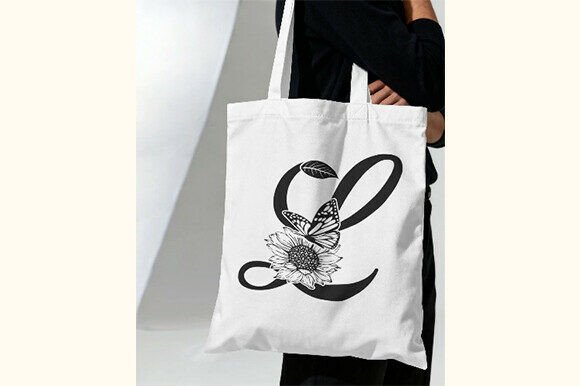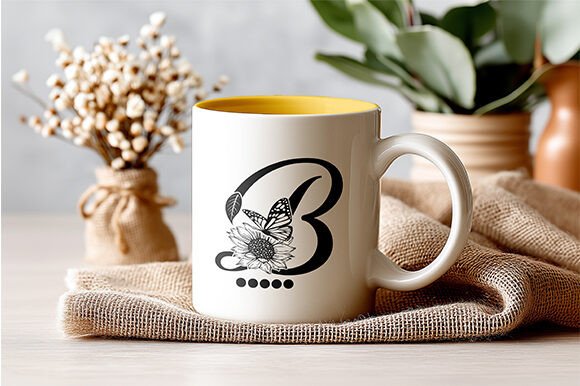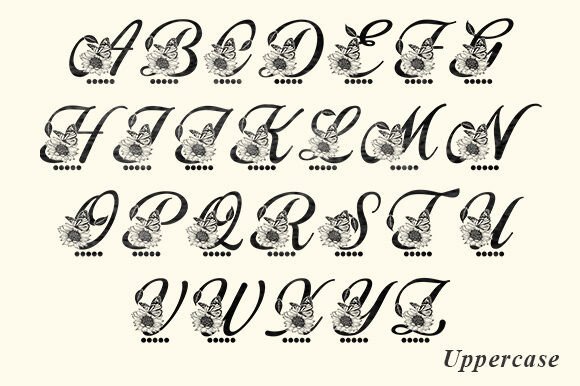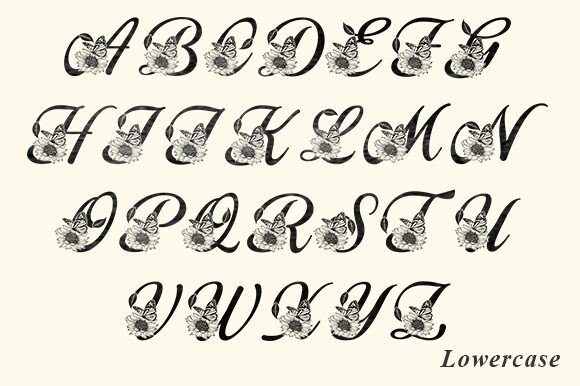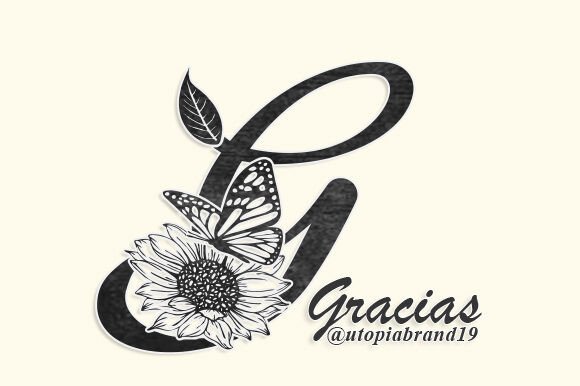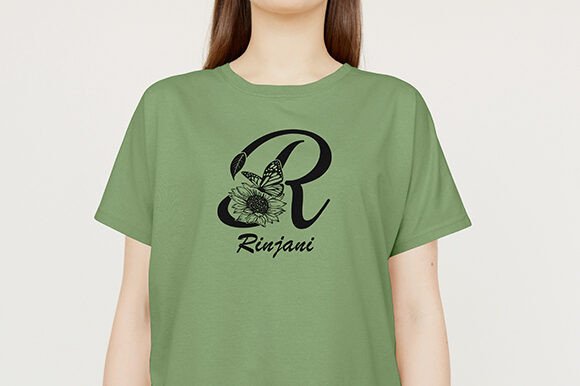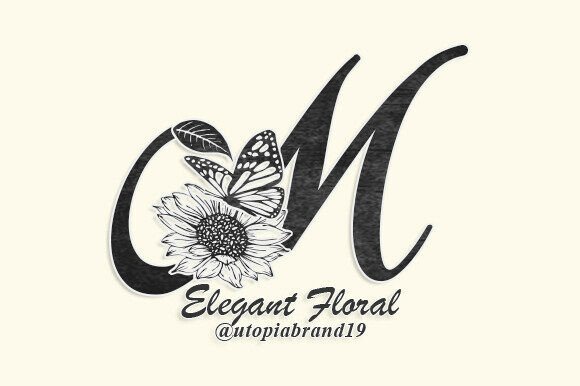
Elegant Floral Monogram Font: Elevate Your Designs with Nature’s Splendor
Are you a designer or crafter looking for a unique and captivating font to infuse your projects with the beauty of nature? Look no further than the Elegant Floral Monogram Font. This stunning ornamental display font combines the harmony of botanicals and wildlife, perfect for creating enchanting designs that evoke the serenity of an enchanted garden.
The Inspiration Behind Elegant Floral
Elegant Floral is more than just a font – it’s a work of art that celebrates the intricate relationships between flowers, leaves, and wildlife. The font features sweeping, calligraphic strokes that are intricately integrated with hand-illustrated sunflowers, leaves, and a majestic monarch butterfly. Each element is carefully crafted to create a sense of movement and fluidity, as if the design is unfolding before your eyes.
Perfect for Nature-Inspired Designs
With its elegant and artistic weight, Elegant Floral is the premier choice for a variety of design applications that celebrate the beauty of nature. Some of the ideal uses for this font include:
- Boutique Florist Branding: Create a lasting impression with custom logos, business cards, and packaging that reflect the unique charm of your floristry business.
- Artisanal Organic Product Packaging: Elevate your brand with labels, tags, and packaging that convey a sense of natural elegance and sophistication.
- Luxury Garden-Party Invitations: Invite your guests to a whimsical world of beauty and wonder with custom invitations that showcase the Elegant Floral Monogram Font.
- Enchanting “Cottage-Core” Digital Headers: Add a touch of rustic charm to your blog, website, or social media profiles with headers that evoke the warmth and coziness of a countryside retreat.
Key Features of Elegant Floral Monogram Font
So, what makes Elegant Floral Monogram Font so special? Here are just a few of the key features that set this font apart:
- Intricate Illustrations: Hand-illustrated sunflowers, leaves, and monarch butterflies add a level of detail and realism to your designs.
- Calligraphic Strokes: Sweeping, fluid strokes create a sense of movement and elegance, perfect for capturing the beauty of nature.
- Monogram Style: Elegant Floral is designed as a monogram font, making it easy to create custom logos, initials, and decorative elements.
- Enchanted-Garden Soul: This font embodies the essence of a serene and idyllic natural setting, perfect for designers and crafters who want to evoke a sense of wonder and magic.
Tips for Using Elegant Floral Monogram Font
To get the most out of Elegant Floral Monogram Font, here are a few tips to keep in mind:
- Experiment with Color: Try pairing the font with a range of colors, from soft pastels to rich jewel tones, to find the perfect combination for your design.
- Mix and Match: Combine Elegant Floral with other fonts or design elements to create a unique and eye-catching look.
- Pay Attention to Scale: Experiment with different font sizes to find the perfect balance between elegance and readability.
Elegant Floral Monogram Font is a true masterpiece of design, perfect for anyone looking to infuse their projects with the delicate splendor of nature. With its intricate illustrations, calligraphic strokes, and enchanted-garden soul, this font is sure to captivate your audience and leave a lasting impression. Whether you’re a designer, crafter, or simply someone who appreciates the beauty of nature, Elegant Floral Monogram Font is a must-have addition to your design toolkit.